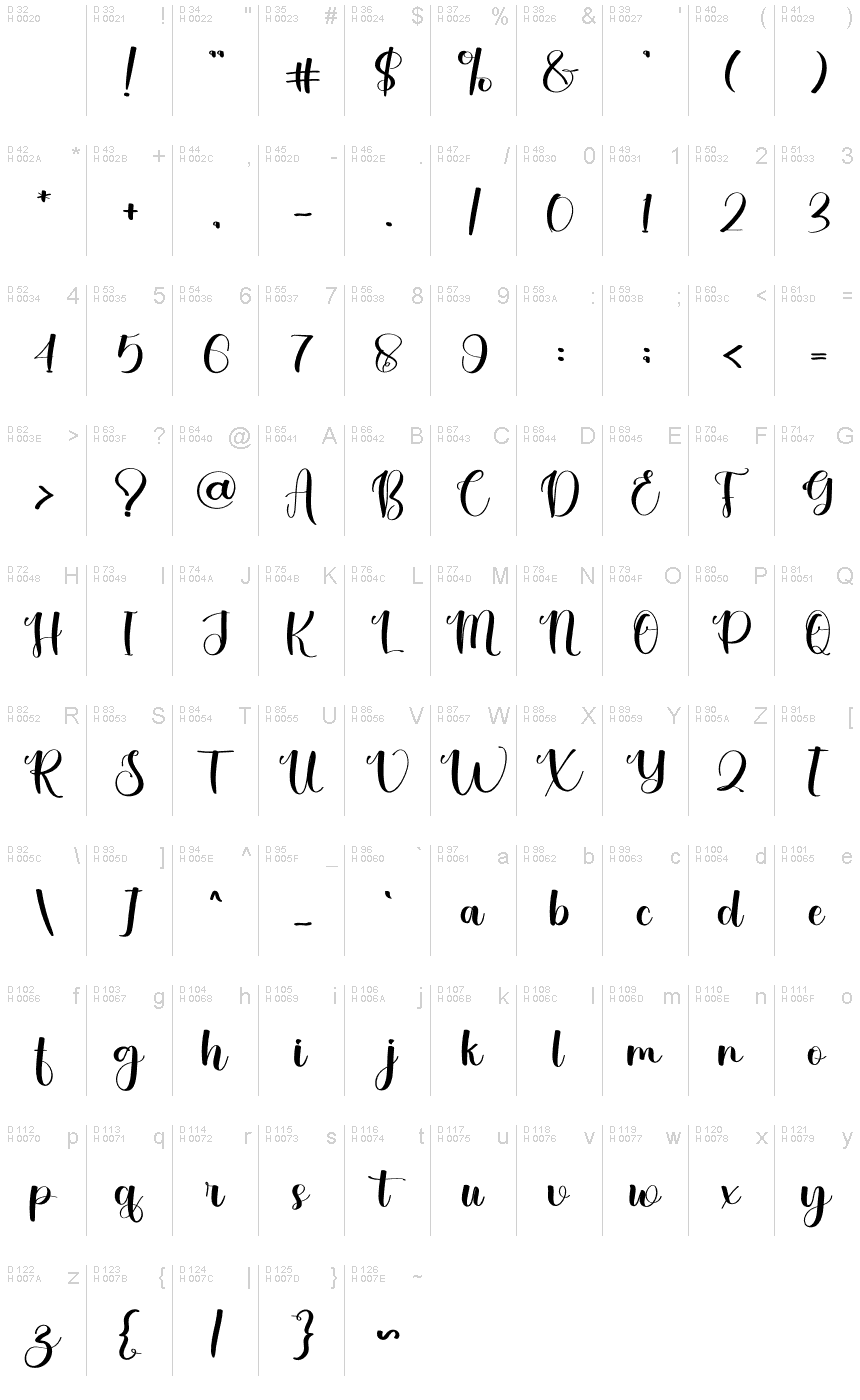
After
After, designed by FreshtypeINK, stands out with its fluid calligraphy style that embodies both elegance and modernity. The sweeping curves and fine lines evoke a sense of bespoke craftsmanship, making it a perfect choice for projects that require a personal touch. Its visual appeal lies in the balance between traditional calligraphic techniques and contemporary design sensibilities.
The font's aesthetic is versatile enough to enhance wedding invitations, branding materials, and creative advertising with its sophisticated yet approachable demeanor. Each character in After is crafted to ensure readability while maintaining an artistic flair, offering designers a font that is as functional as it is beautiful.
With After, your creative work can communicate with grace and style, whether you're looking to capture the essence of luxury or add a handwritten charm to your designs. FreshtypeINK has created more than just a typeface-it's an artistic tool that invites creativity across various mediums.